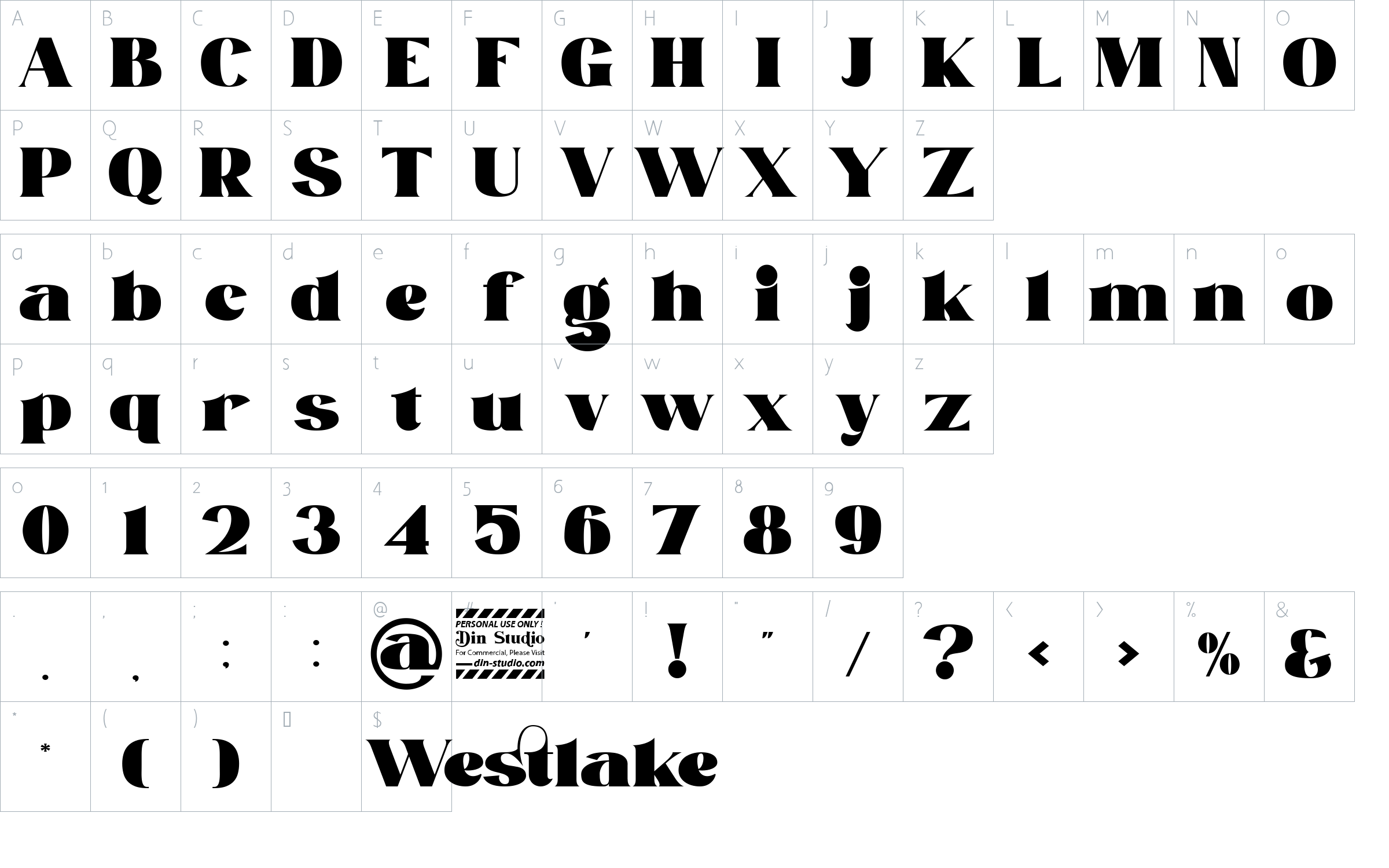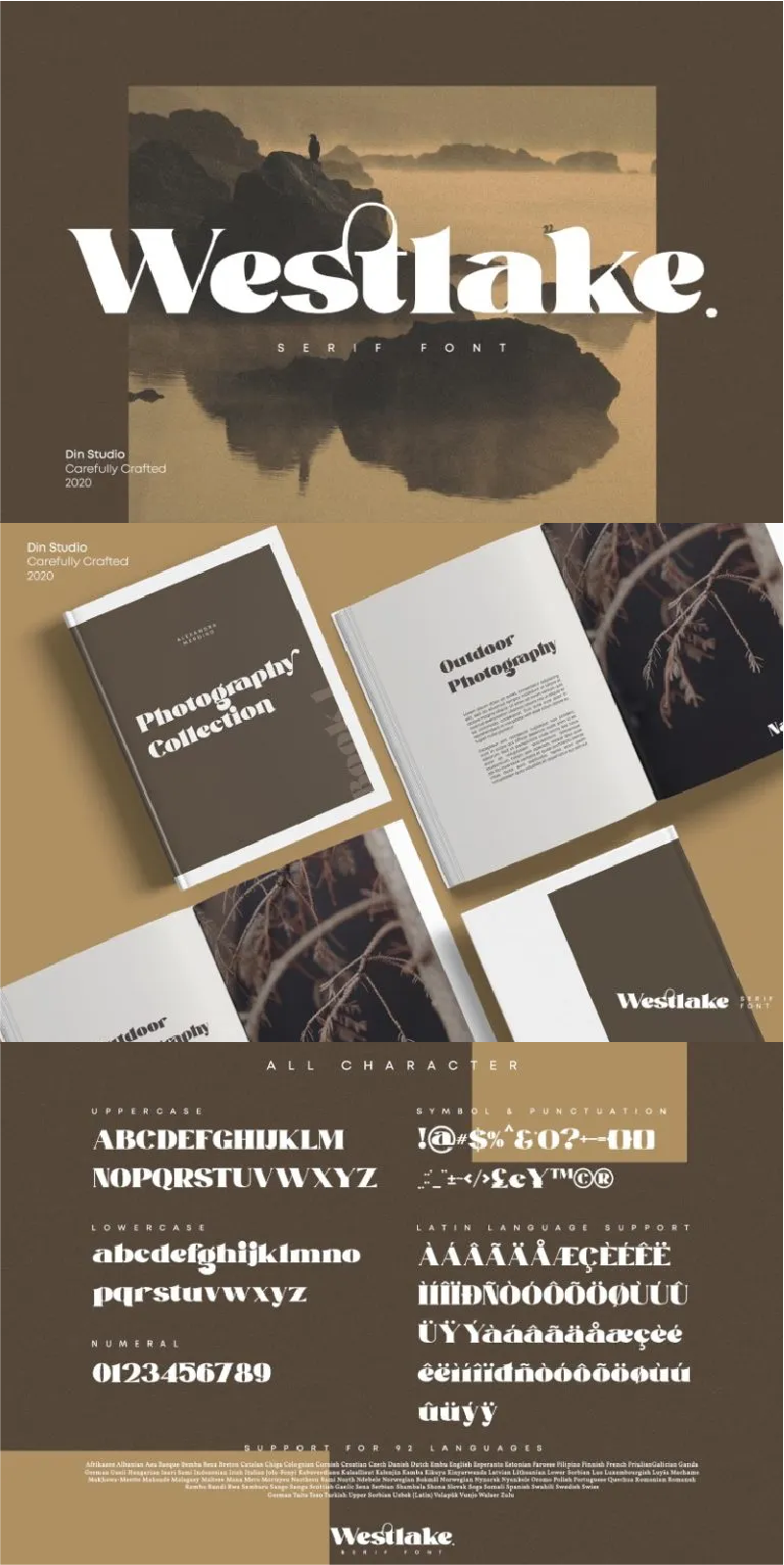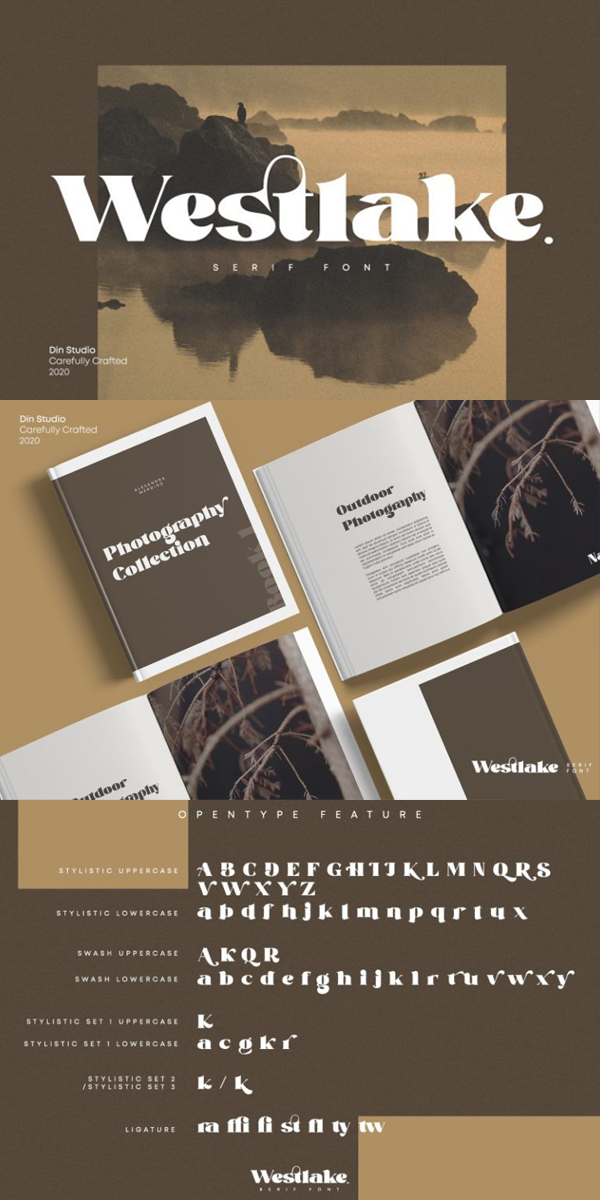
Westlake Font
About Westlake
Westlake is a serif font. Made for any professional project branding. It is the best for logos, branding and quotes. Every letter has a unique and beautiful touch. See the previews above to get some inspiration on how you can use them.
– Standard Ligatures
– Swashes
– Stylistic Sets